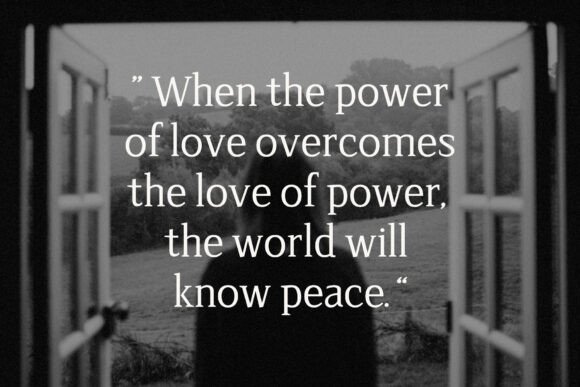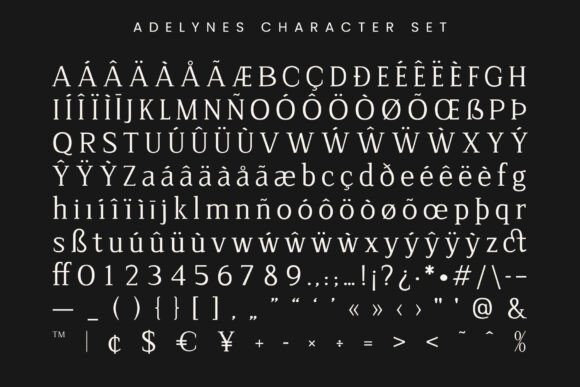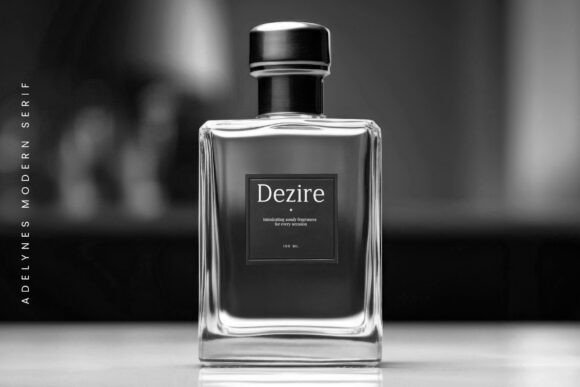
Introducing Adelynes Font: The Modern and Simple Choice for Designers and Crafters
In the world of typography, fonts play a crucial role in conveying messages, expressing emotions, and creating visual identities. For designers and crafters, finding the perfect font can be a daunting task, especially when it comes to creating stunning headings, logos, and branding materials. This is where Adelynes Font comes in – a modern and simple font designed specifically for display purposes. In this article, we’ll explore the features, benefits, and uses of Adelynes Font, and why it’s becoming a favorite among designers and crafters.
What is Adelynes Font?
Adelynes Font is a contemporary and clean font, perfect for making a statement with your designs. Its simplicity and elegance make it an excellent choice for display purposes, such as headings, logos, branding, magazines, product packaging, and invitations. With its modern aesthetic, Adelynes Font is ideal for designers and crafters looking to create fresh and sophisticated designs that capture attention.
Key Features of Adelynes Font
- Modern and Simple Design: Adelynes Font boasts a sleek and minimalist design, making it perfect for creating modern and sophisticated designs.
- Display Font: Designed specifically for display purposes, Adelynes Font is optimized for use in headings, titles, and other prominent design elements.
- High Versatility: Adelynes Font can be used in a variety of design applications, including logos, branding, magazines, product packaging, and invitations.
- Ease of Use: With its clean and simple design, Adelynes Font is easy to read and works well in both digital and print formats.
Benefits of Using Adelynes Font
So, why choose Adelynes Font for your design projects? Here are just a few benefits:
- Instant Recognition: Adelynes Font’s unique and modern design makes it instantly recognizable, helping your brand or design stand out from the crowd.
- Improved Readability: Despite its elegant design, Adelynes Font remains highly readable, even at smaller sizes, making it perfect for use in a variety of design applications.
- Flexibility: With Adelynes Font, you can create a wide range of designs, from minimalist and sophisticated to bold and eye-catching.
- Time-Saving: Adelynes Font’s versatility and ease of use save you time and effort, allowing you to focus on other creative aspects of your design project.
Uses of Adelynes Font
Adelynes Font is an incredibly versatile font, suitable for a wide range of design applications. Here are some ideas to get you started:
- Headings and Titles: Use Adelynes Font to create stunning headings and titles for your blog posts, articles, and other written content.
- Logos and Branding: Create a lasting impression with Adelynes Font, perfect for logos, business cards, and other branding materials.
- Magazines and Newsletters: Add a touch of elegance to your magazines and newsletters with Adelynes Font, ideal for headings, subheadings, and titles.
- Product Packaging: Make your product packaging stand out with Adelynes Font, perfect for labels, tags, and other packaging materials.
- Invitations and Events: Create beautiful invitations and event materials with Adelynes Font, ideal for weddings, parties, and other special occasions.
In conclusion, Adelynes Font is a modern and simple font that’s perfect for designers and crafters looking to create stunning designs. With its clean and elegant design, Adelynes Font is ideal for display purposes, offering high versatility and ease of use. Whether you’re creating headings, logos, branding materials, or invitations, Adelynes Font is an excellent choice. So why not give it a try and take your designs to the next level?